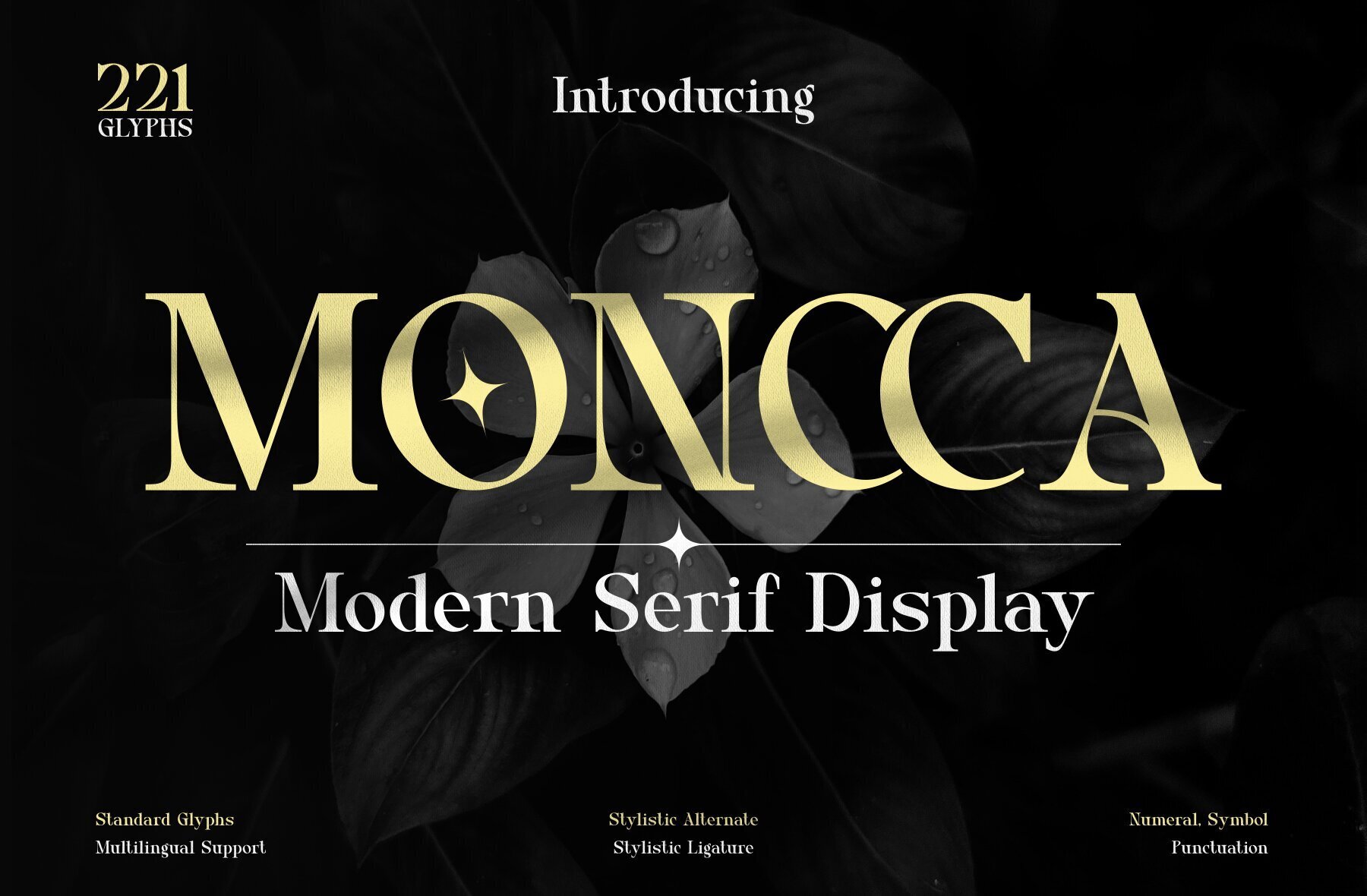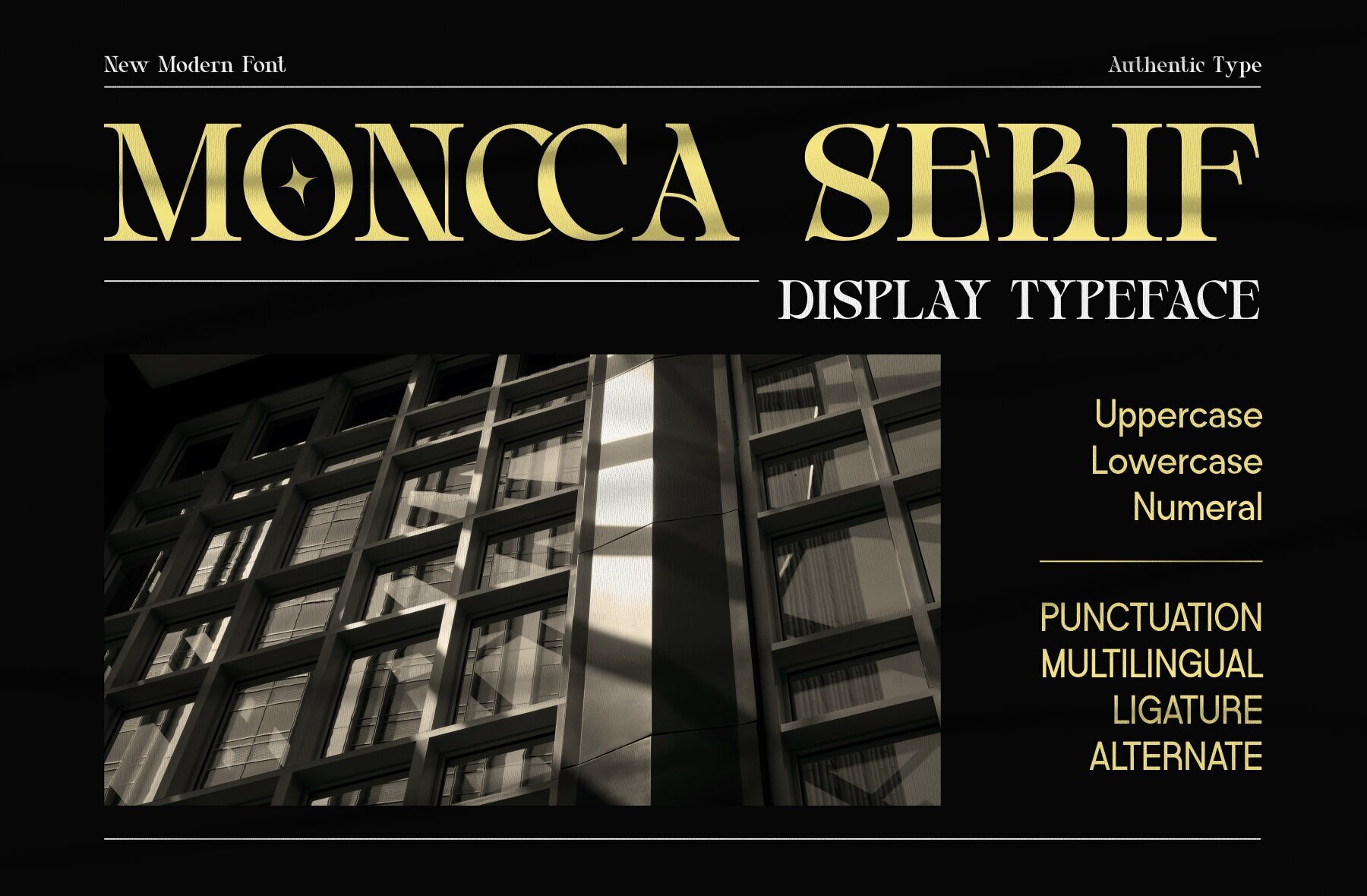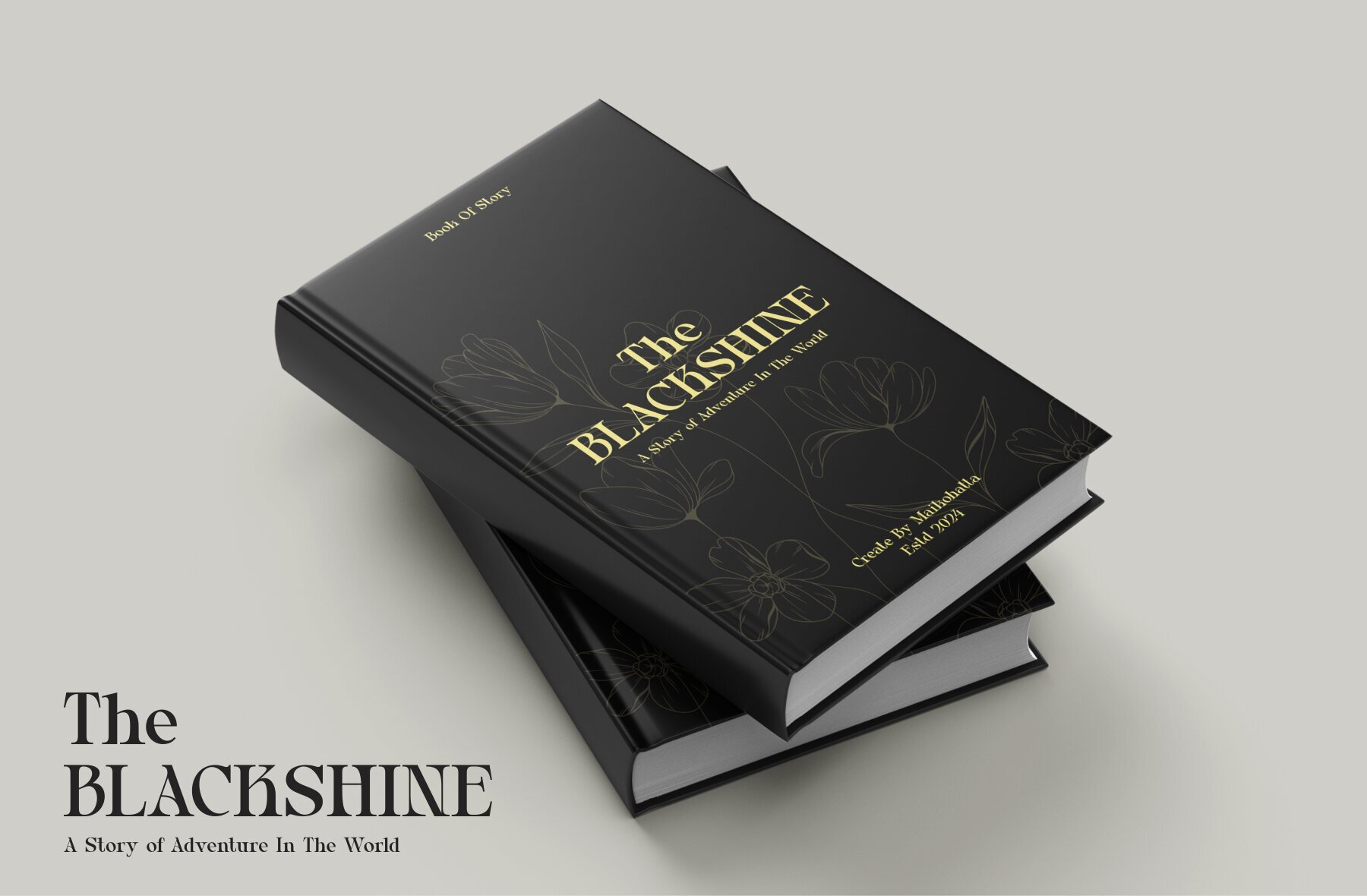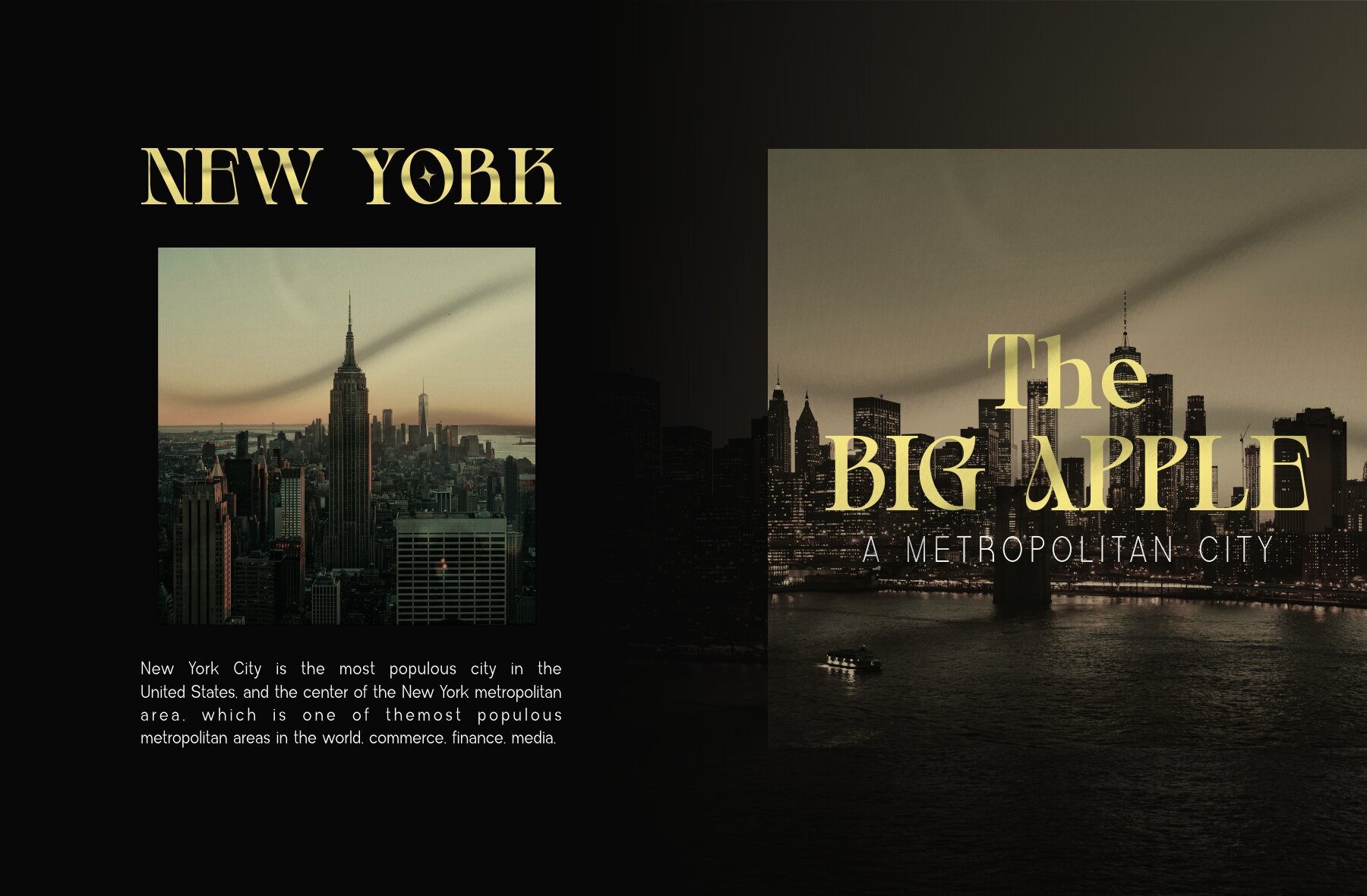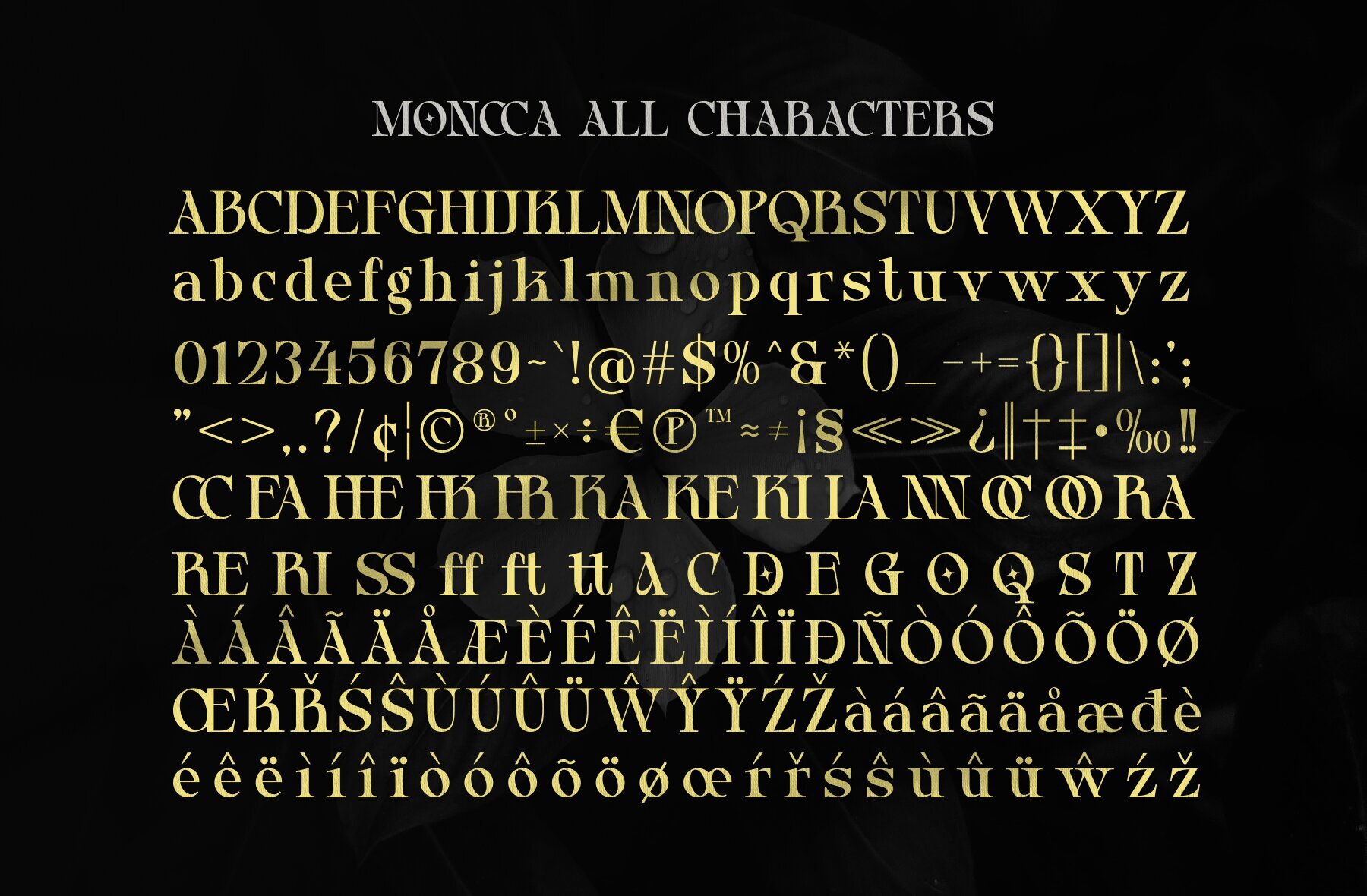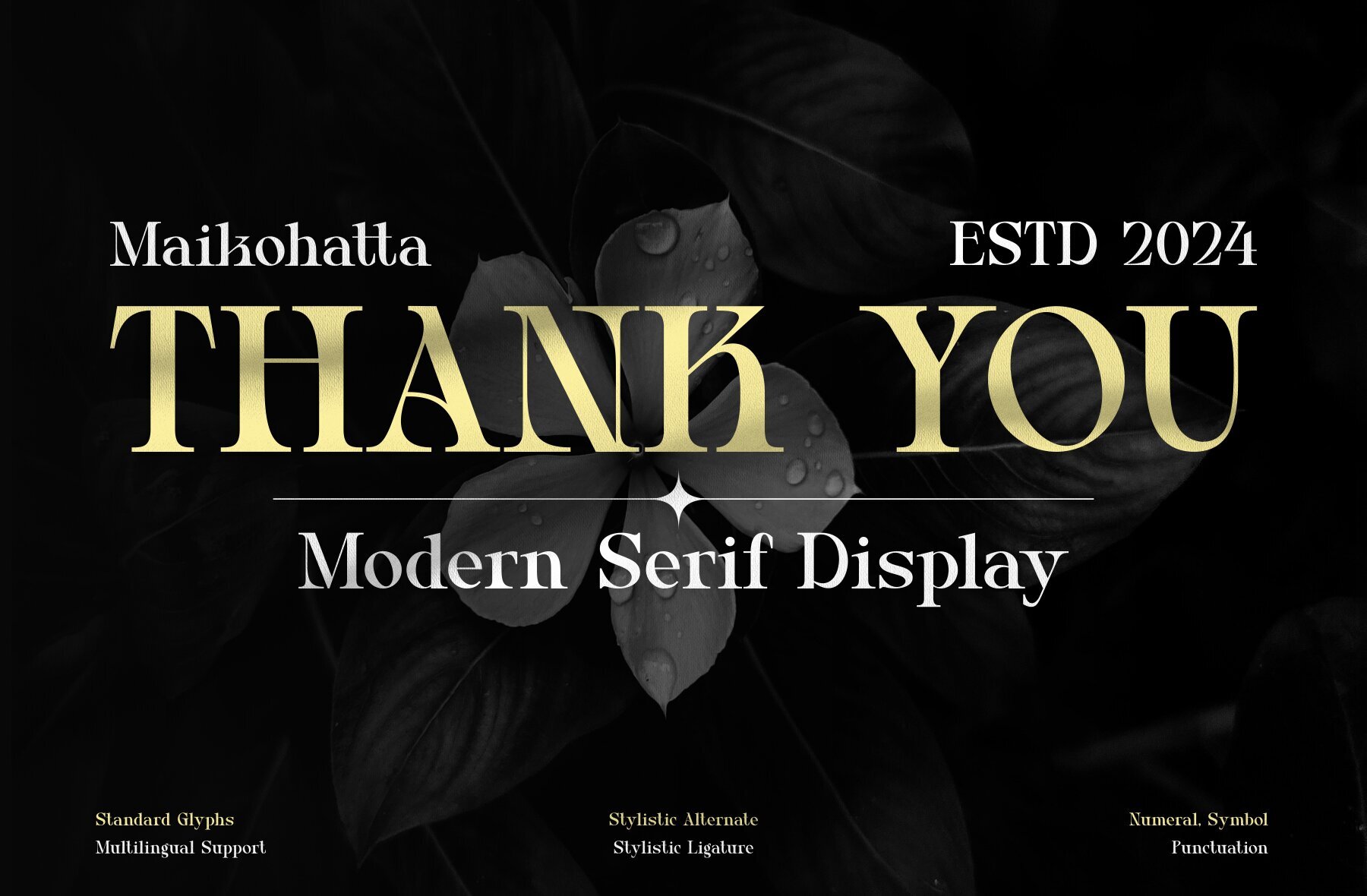
Moncca Font
Moncca Regular
Moncca is designed to bring modern elegance to your typography projects. This serif font is characterized by a harmonious balance between stroke thickness and fineness, offering visuals that are both attractive and easy to read. It combines modern design with traditional serif elements, providing a bold distinction between thick and thin lines for a style that is understated yet distinct.Moncca: Balanced Modern Serif Display